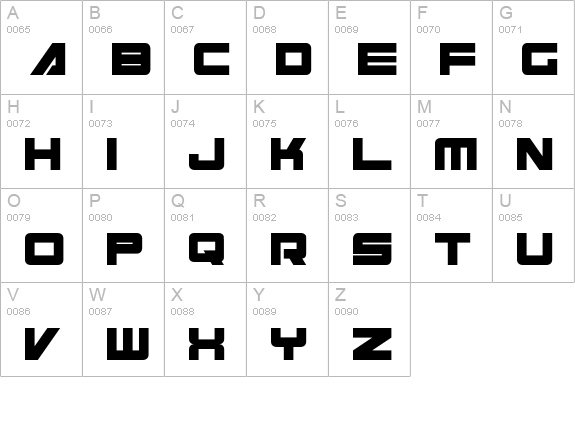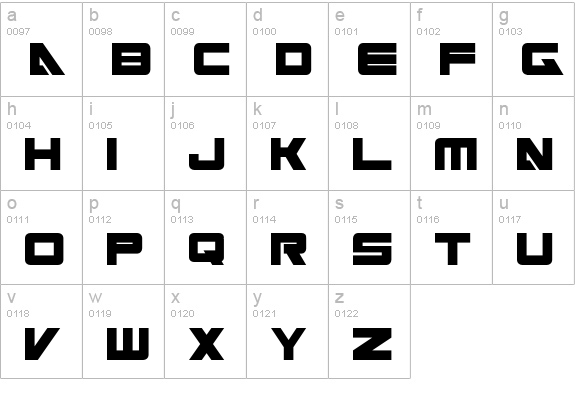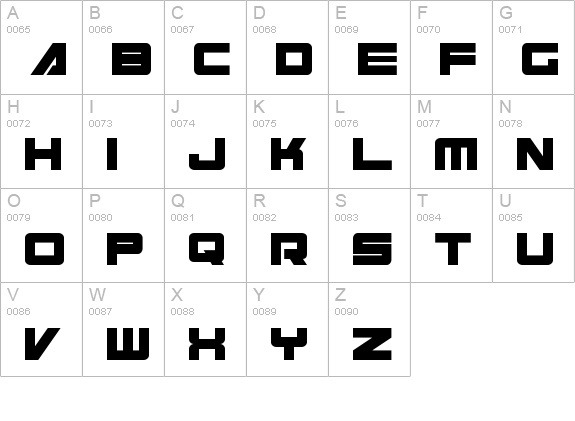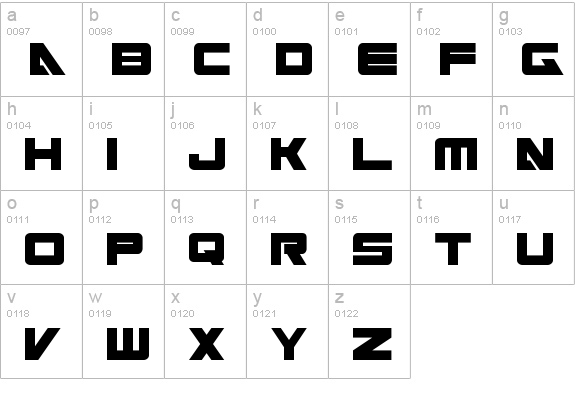
Cyberspace Font Details
Cyberspace is a free for personal use font in the Modern > Sci-Fi category. It has been downloaded 137 times and is available for Windows, Mac and Linux.
The Cyberspace font is a bold and futuristic typeface that embodies the essence of the digital world. With its sleek and innovative design, this font is perfect for projects that require a modern and edgy look. The sharp lines and geometric shapes of the letters create a sense of movement and energy, making it the ideal choice for logos, website headers, and social media posts. But what makes the Cyberspace font even more enticing is that it is free! Yes, you read that right. This incredible font is freely available to download at FontsMarket.com. Whether you are a professional designer or a hobbyist, you can now add a touch of cyber flair to your creations without breaking the bank. The Cyberspace font offers a wide range of styles and variations, allowing you to experiment and find the perfect fit for your project. From thin and elegant to bold and attention-grabbing, this font has it all. Its versatility makes it suitable for a multitude of applications, from branding and advertising to digital art and gaming. Imagine the possibilities with the Cyberspace font. Embrace the digital age and let your creativity soar. With its free availability, you can now bring a cutting-edge aesthetic to your designs without any barriers. So, go ahead and download the Cyberspace font from FontsMarket.com today and embark on a journey into a world of limitless possibilities.